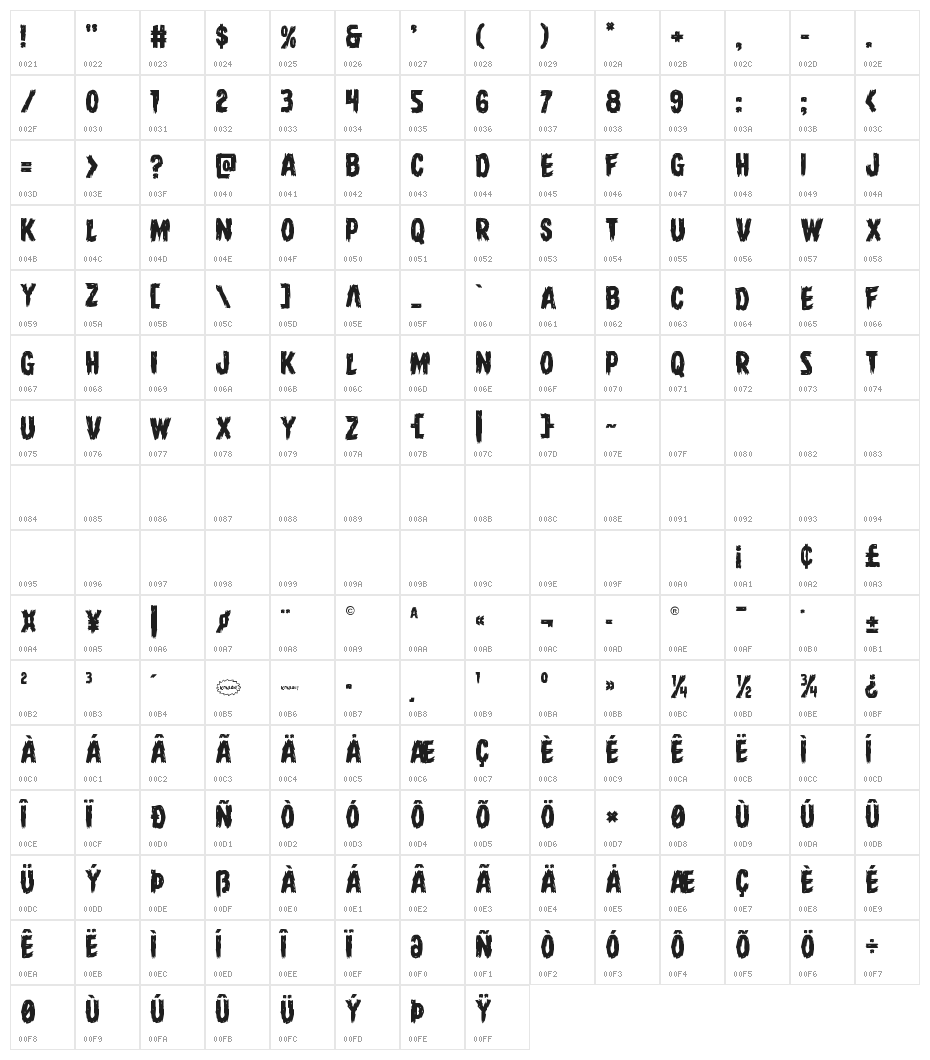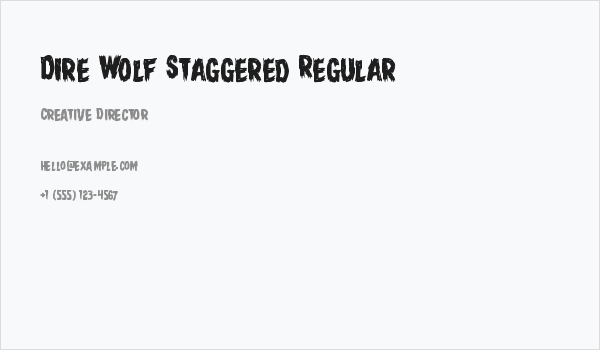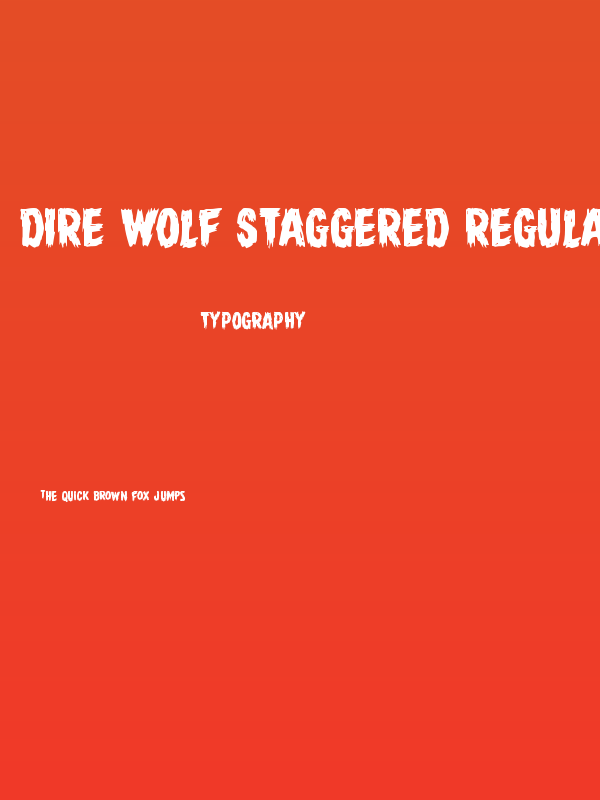
Dire Wolf Staggered Regular Font
Dire Wolf Staggered Regular Description
This font features a rugged and jagged design, reminiscent of torn paper or claw marks. The characters are bold and heavily stylized, with uneven edges that give a sense of movement and energy. The uppercase and lowercase letters maintain a consistent style, with a strong emphasis on the vertical strokes. Numbers and special characters follow the same aesthetic, making the font suitable for attention-grabbing designs. The overall look is aggressive and dynamic, ideal for projects that require a bold statement.
| Proposed Projects | Perfect for horror-themed posters, video game titles, or any design needing a dramatic and edgy look. |